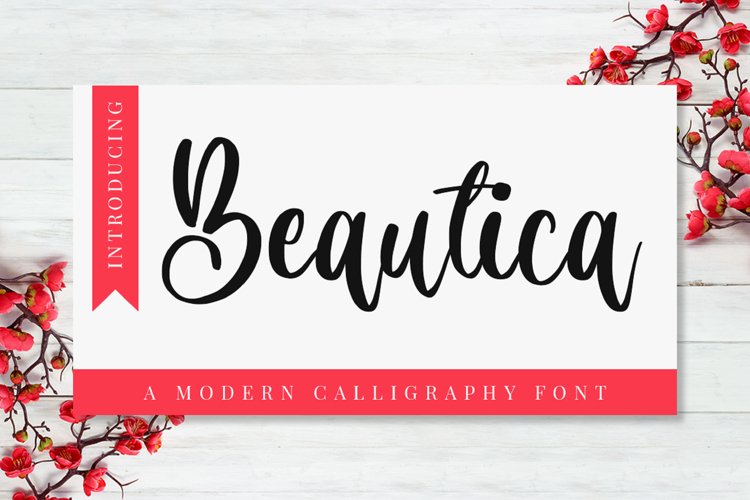
Introducing Beautica - A Modern Calligraphy Font
This is a handcrafted and most natural, elegant, simple yet angelic font. This beautiful font can be used for various projects and promotions. Go ahead and use it on your website, your social media branding, Pinterest banners, printed invitations, and more!
Inspire your audience, clients, or guests with richness of elegance with this modern handwritten font.